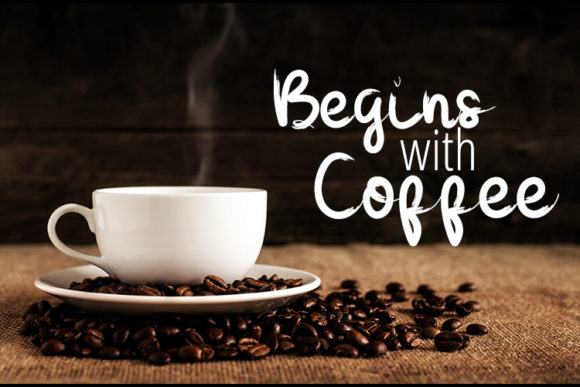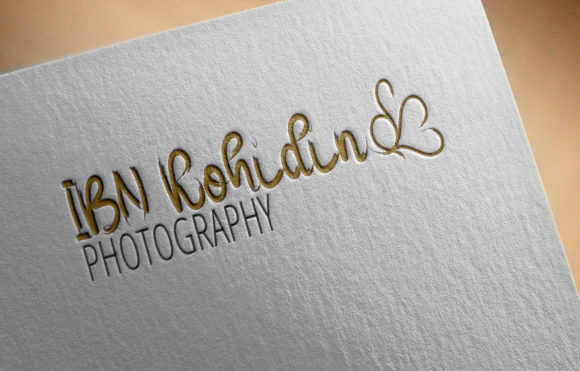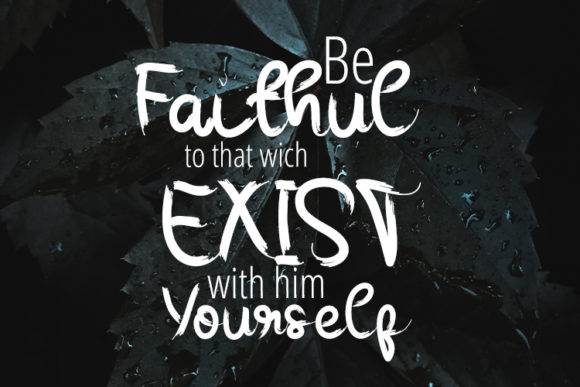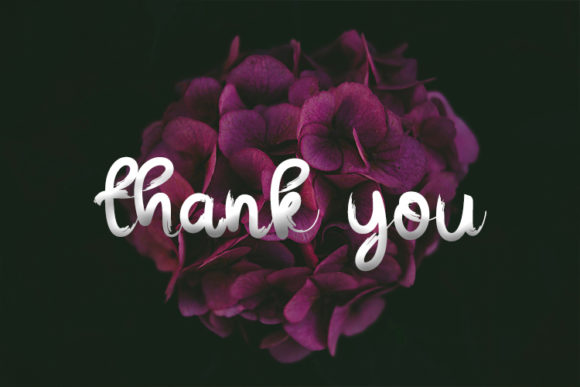
Introducing Brush Moon Font: The Ultimate Handwritten Font for Stunning Designs
Are you tired of using the same old fonts for your designs? Look no further! Brush Moon Font is a beautiful, thick lettered, and flowing handwritten font that is sure to take your designs to the next level. With its incredibly versatile style, you can use it to create spectacular designs that will leave a lasting impression on your audience.
The Beauty of Brush Moon Font
Brush Moon Font is a stunning handwritten font that is perfect for designers and crafters who want to add a personal touch to their work. Its thick, flowing letters are reminiscent of traditional brush calligraphy, but with a modern twist. The font is incredibly versatile, making it suitable for a wide range of design projects, from wedding invitations and branding materials to social media graphics and digital art.
Key Features of Brush Moon Font
- Beautifully crafted letters: Each letter in Brush Moon Font is carefully crafted to create a beautiful, flowing script that is both elegant and eye-catching.
- Thick and bold: The font features thick, bold letters that are perfect for creating statement pieces and eye-catching designs.
- Versatile: Brush Moon Font is incredibly versatile, making it suitable for a wide range of design projects, from formal to informal.
- Easy to read: Despite its bold and flowing style, Brush Moon Font is easy to read, making it perfect for body text and headlines.
Uses for Brush Moon Font
Brush Moon Font is perfect for a wide range of design projects, including:
- Wedding invitations and stationery: The font’s elegant and flowing style makes it perfect for wedding invitations, save-the-dates, and other stationery.
- Branding and packaging: Brush Moon Font is a great choice for branding and packaging design, adding a personal touch to your products and services.
- Social media graphics: The font’s bold and eye-catching style makes it perfect for social media graphics, including Facebook posts, Instagram stories, and Twitter headers.
- Digital art and illustrations: Brush Moon Font can be used to add text to digital art and illustrations, creating stunning and unique pieces.
Tips for Using Brush Moon Font
Here are a few tips for getting the most out of Brush Moon Font:
- Experiment with colors: Brush Moon Font looks great in a variety of colors, so don’t be afraid to experiment and find the perfect hue for your design.
- Mix and match: Try pairing Brush Moon Font with other fonts to create a unique and eye-catching design.
- Play with sizes: The font looks great in a range of sizes, from small and delicate to large and bold.
Brush Moon Font is a beautiful and versatile handwritten font that is perfect for designers and crafters who want to add a personal touch to their work. With its thick, flowing letters and incredibly versatile style, it’s sure to become a favorite in your design arsenal. Whether you’re creating wedding invitations, branding materials, or social media graphics, Brush Moon Font is the perfect choice for stunning designs that will leave a lasting impression.